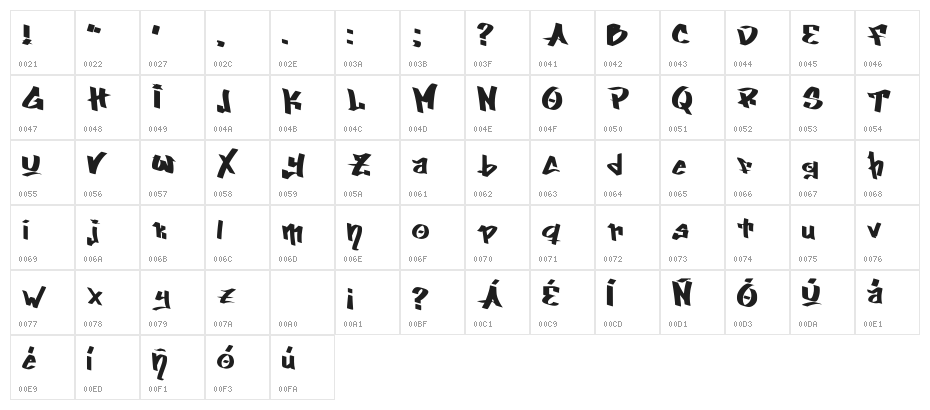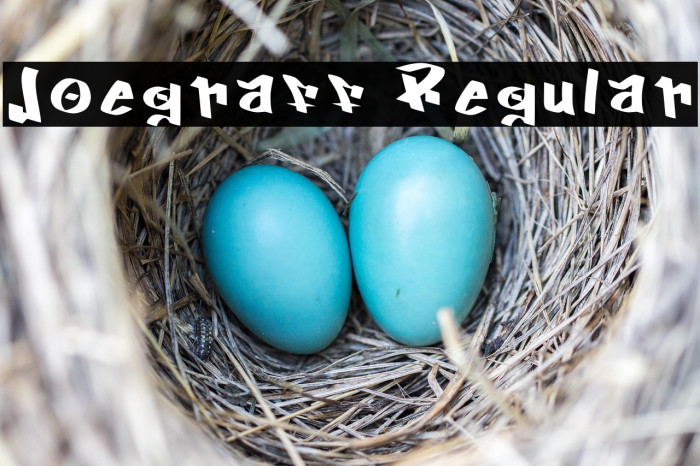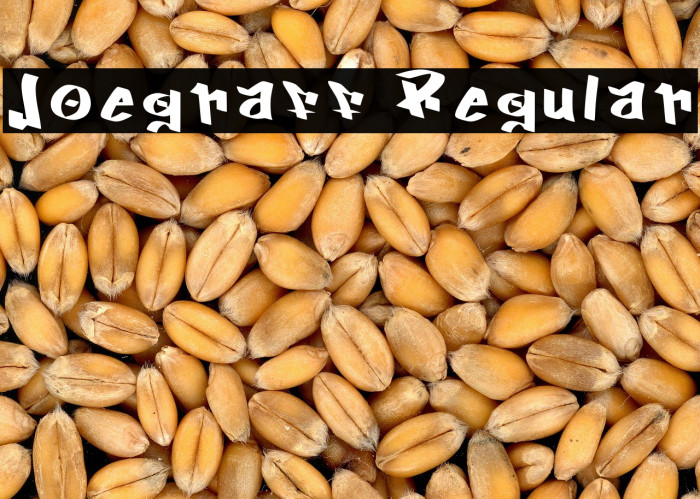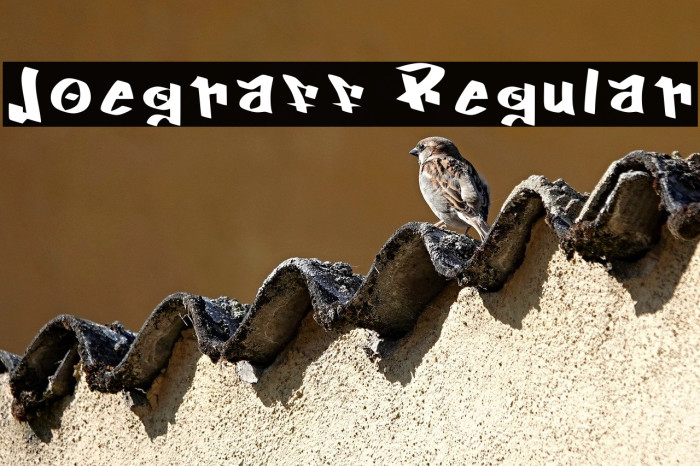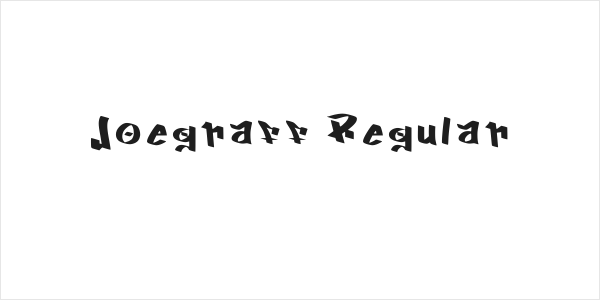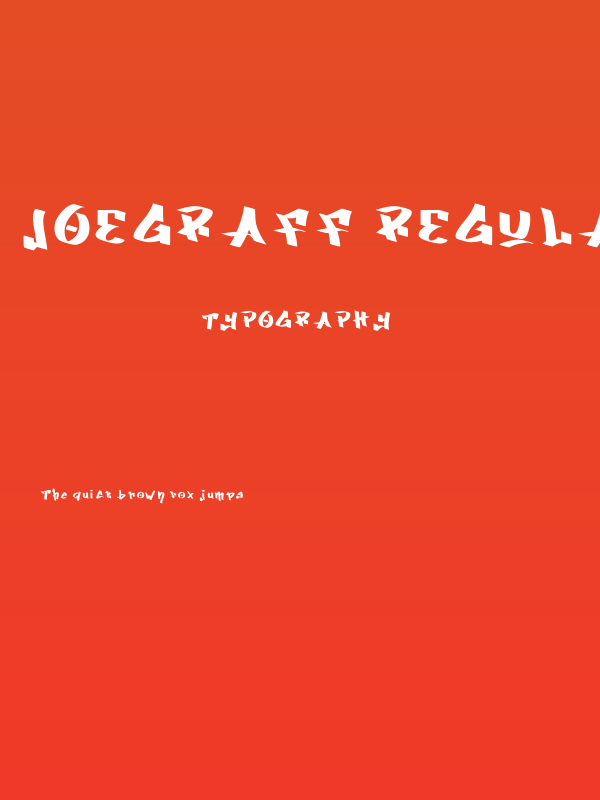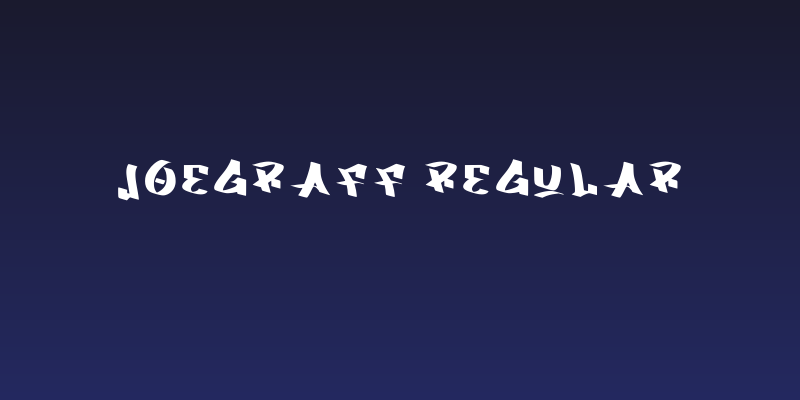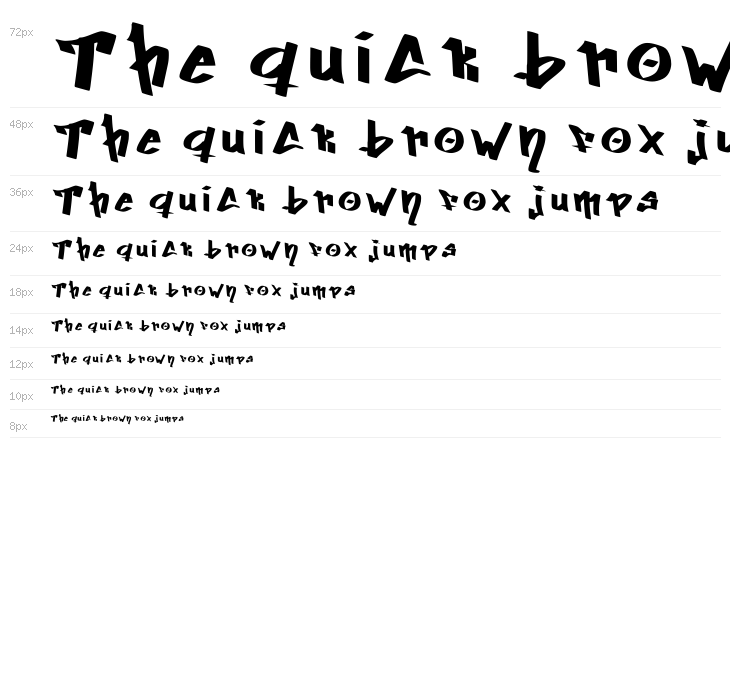
Joegraff Regular Font
Joegraff Regular Description
This font features a bold and dynamic style with sharp, angular edges and a graffiti-inspired aesthetic. The characters are heavily stylized, with exaggerated strokes and a sense of movement that gives it a rebellious and urban feel. The uppercase and lowercase letters maintain a consistent design, while the numbers and special characters complement the overall theme. The font's unique appearance makes it stand out, ideal for projects that require a strong visual impact.
| Overall Style | Modern, Urban, Edgy |
| Proposed Projects | Ideal for street art designs, urban-themed posters, edgy branding, and music album covers. |